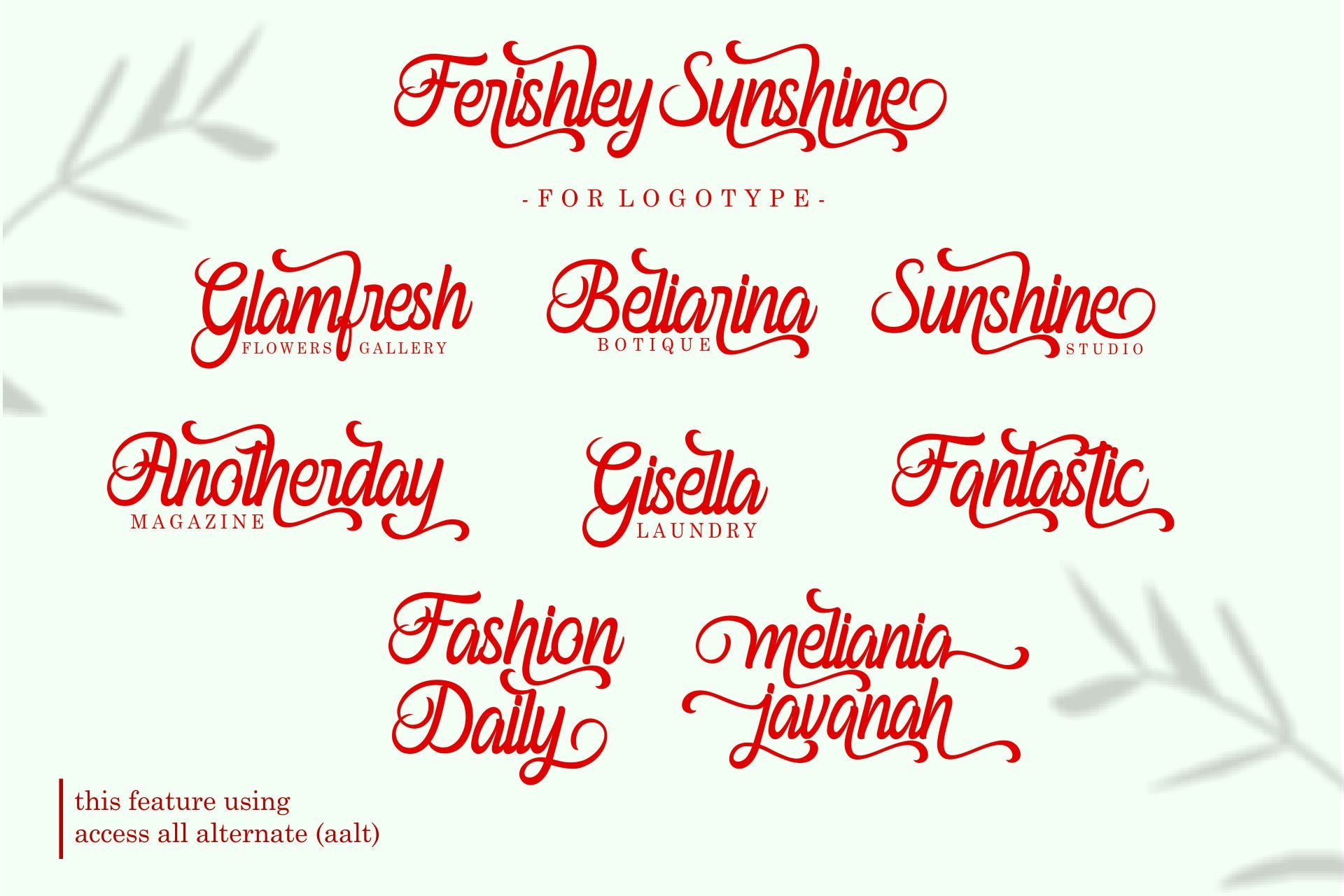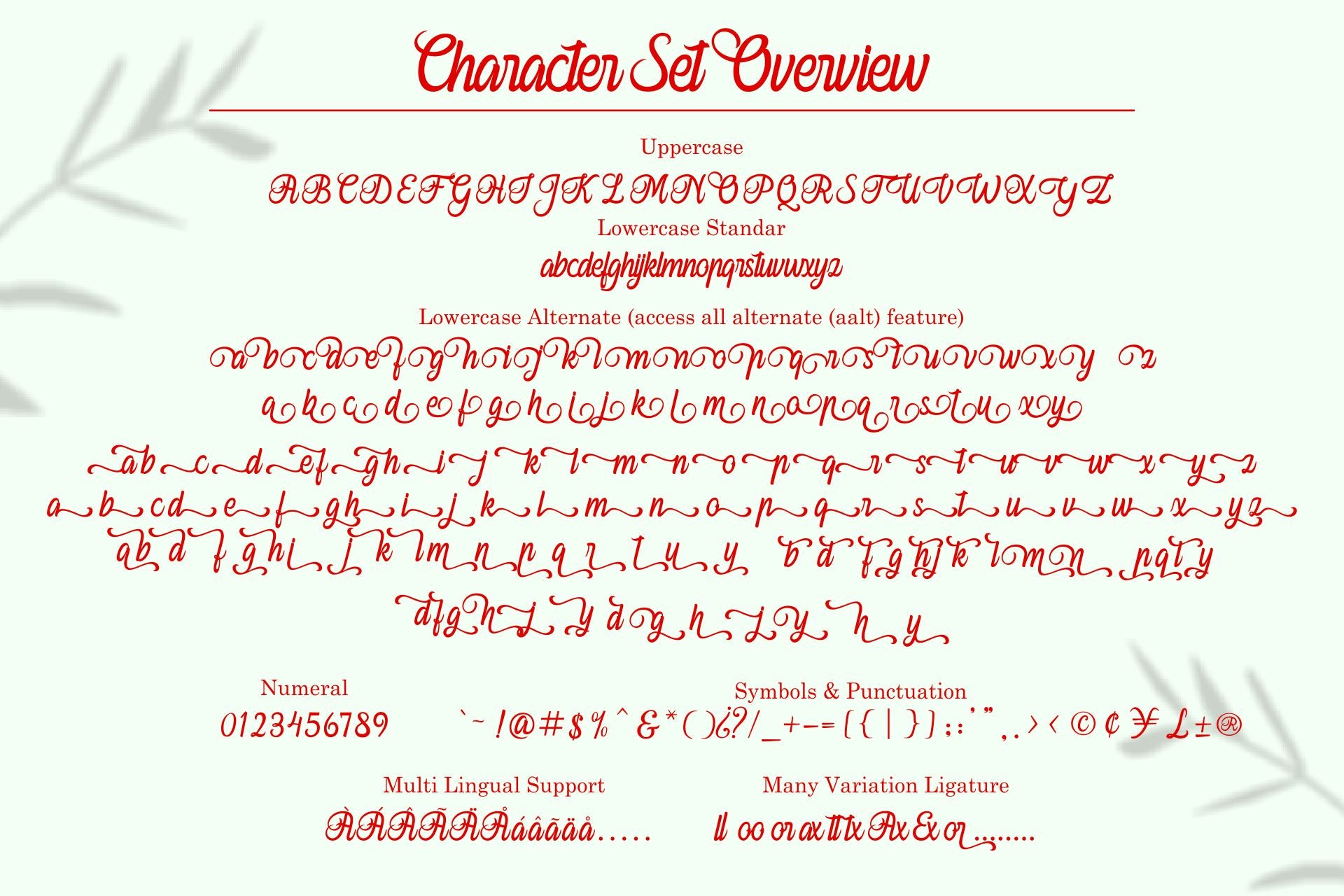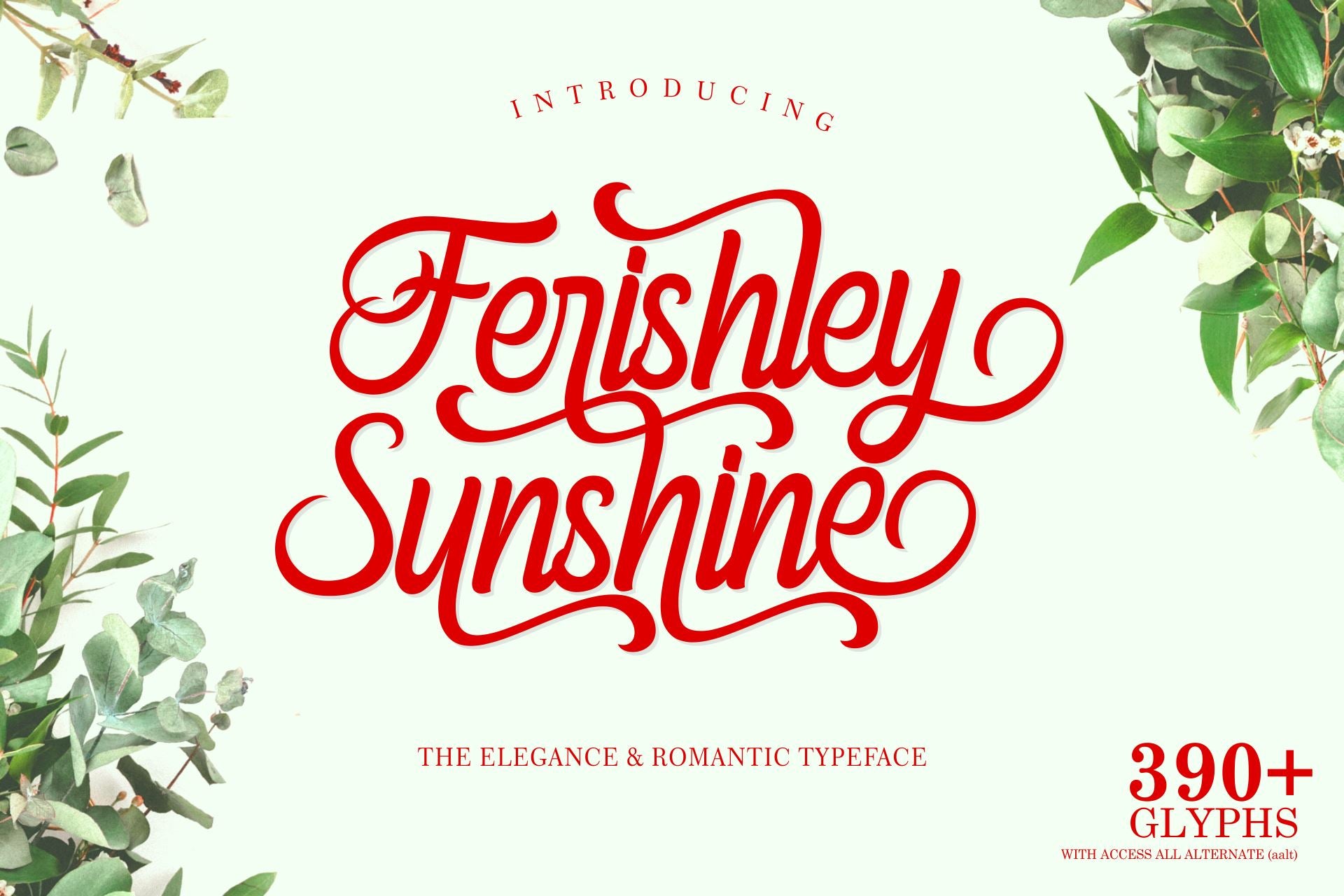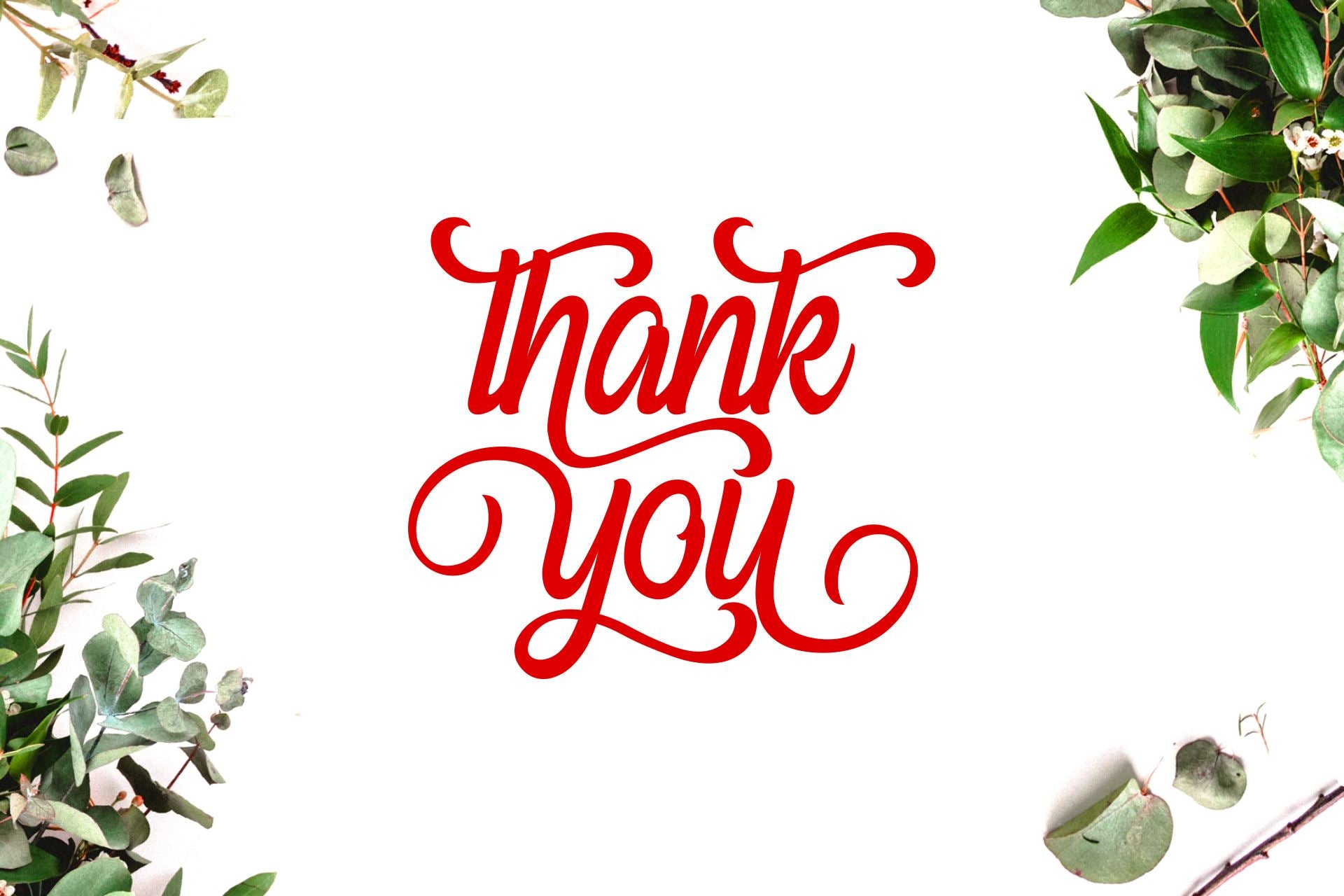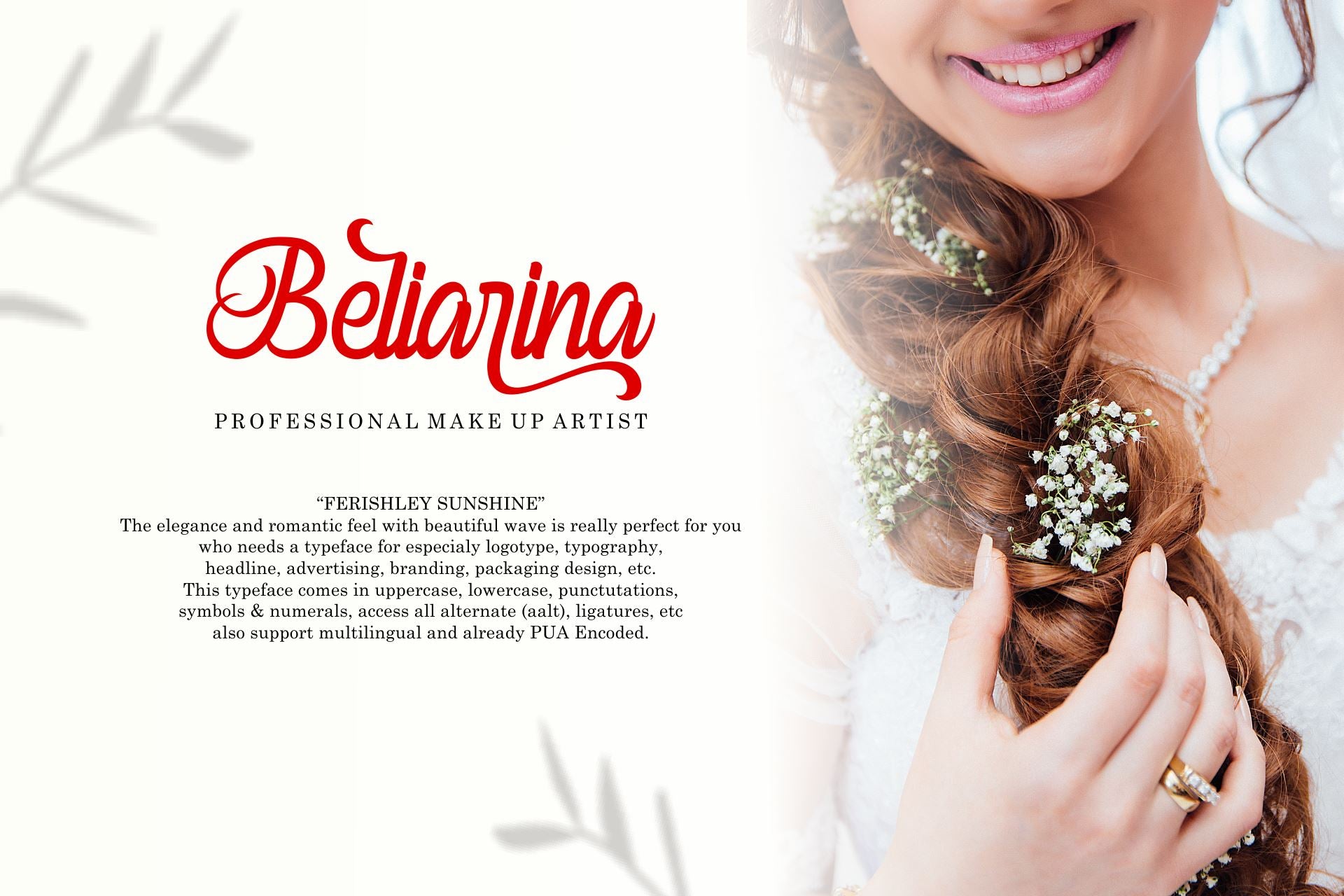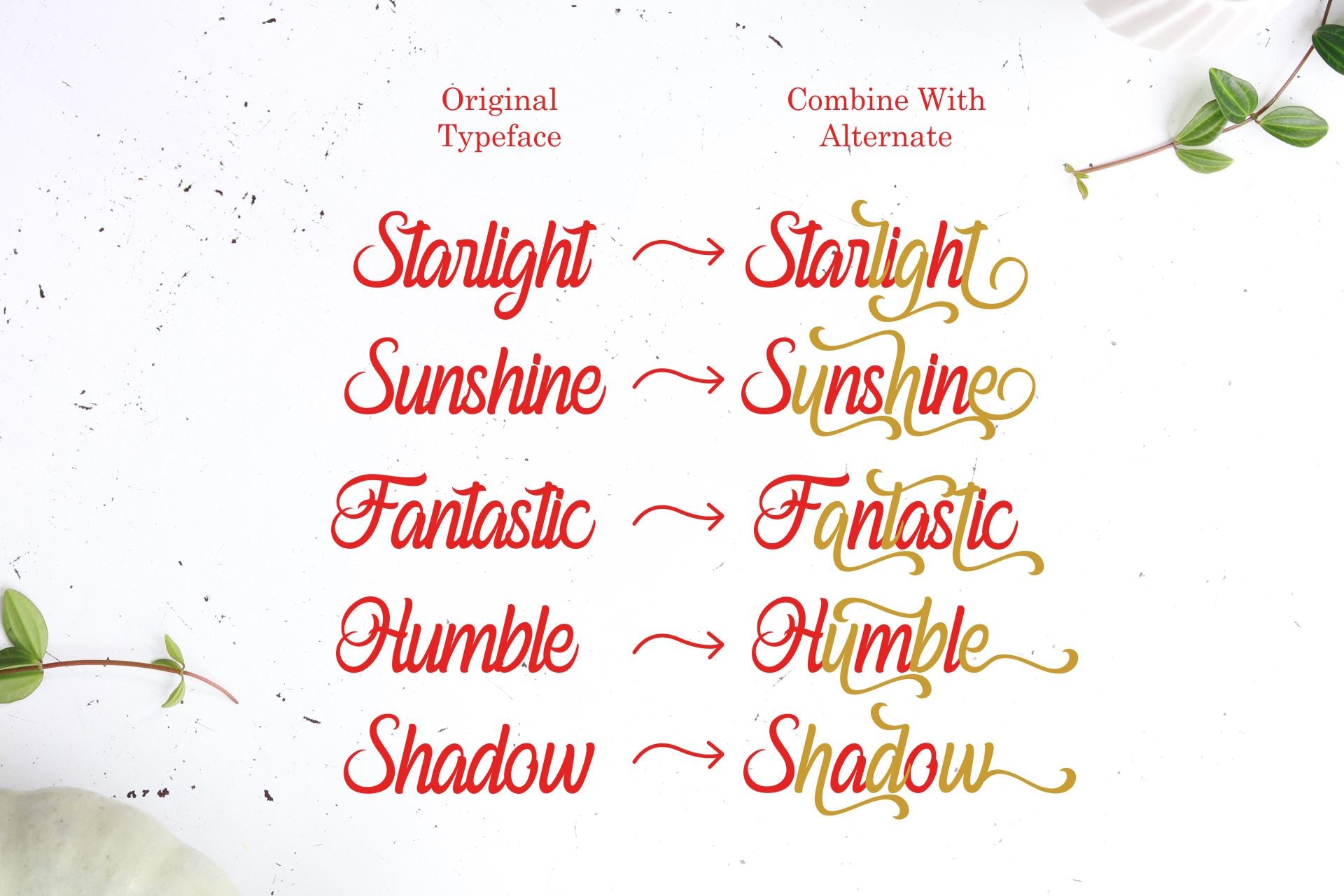
HomeScript FontsFerishley Sunshine Script Fonts Ferishley Sunshine FacebookTwitterPinterestWhatsApp 1 of 7 ... ... ... ... ... ... ... About Ferishley Sunshine is a script font with elegance and romantic feel. Perfect for anything that needs a personalized special touch. DOWNLOAD NOW People also explored Black Pink Family Font Caveman Lodger Friend Font Raspberry Oatmeal Font Samara Ainsley Font Soccer Uniform Mockup Lonchigh Font Giselle Font Avery Font 62 0 TagsFerishley Sunshine Previous articleMayhena Monoline FontNext articleHummingbird LEAVE A REPLY Cancel reply Comment: Please enter your comment! Name:* Please enter your name here Email:* You have entered an incorrect email address! Please enter your email address here Website: Save my name, email, and website in this browser for the next time I comment. Personal Use Free Coconote Personal Use Free Read more about this font Wanita Cantik Personal Use Free Read more about this font Befindisa Personal Use Free Read more about this font Blue Highway Personal Use Free Read more about this font BLOG Free Fonts Risk: Why Free Fonts Can Be Dangerous for Designers Free Fonts Risk: Why Free Fonts Can Be Dangerous for Designers Using free fonts is a common practice in web and graphic design. However, the... Free vs Paid Fonts: Why Investing in Premium Fonts Is Worth It Top 7 Google Fonts Alternatives for Faster and Privacy-Friendly Web Design (2025) Where to Buy American Fonts Online in 2024